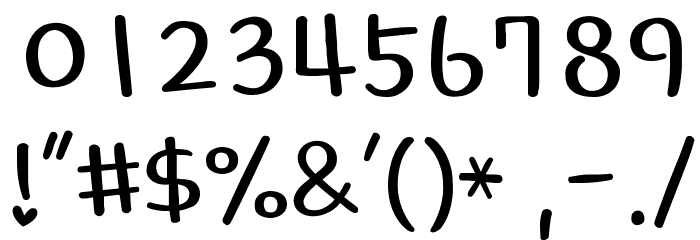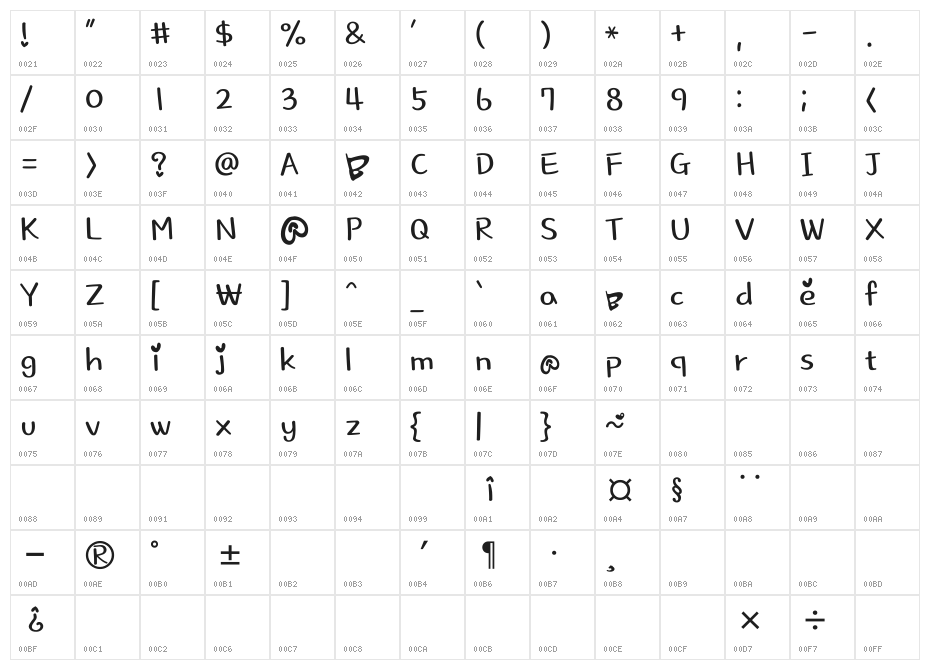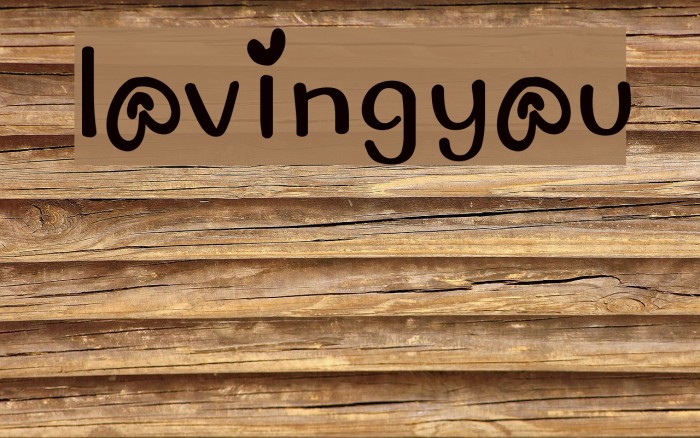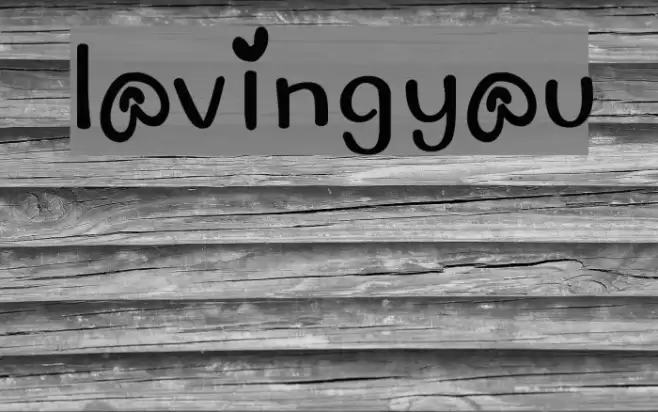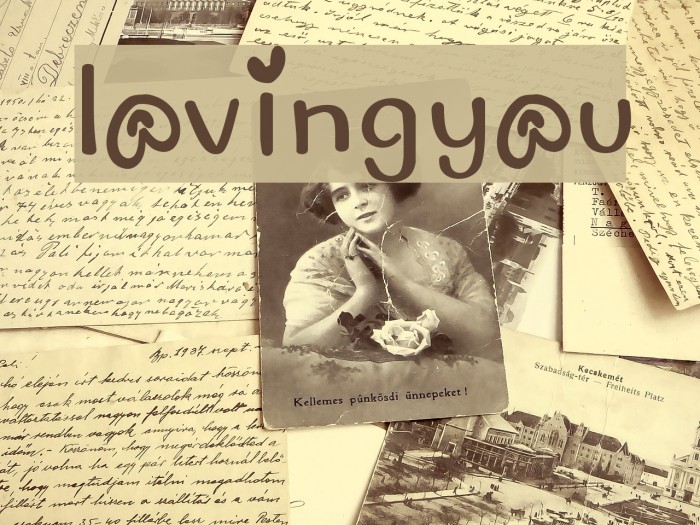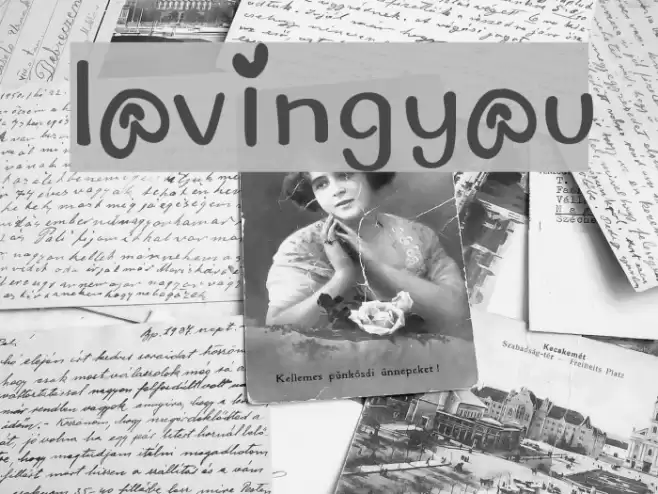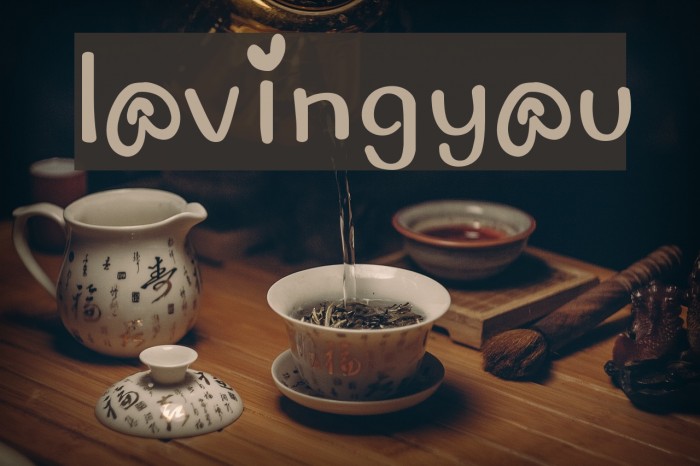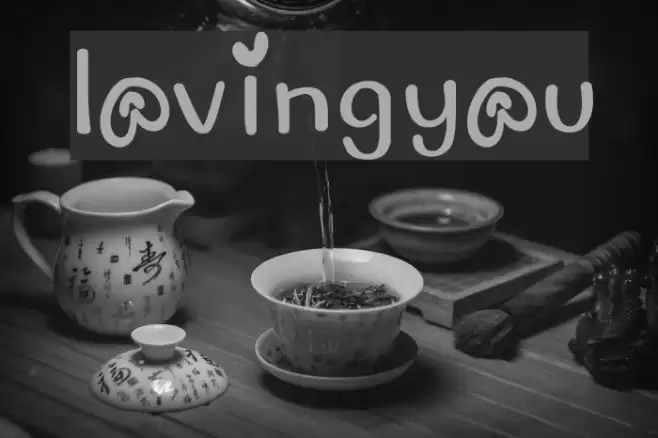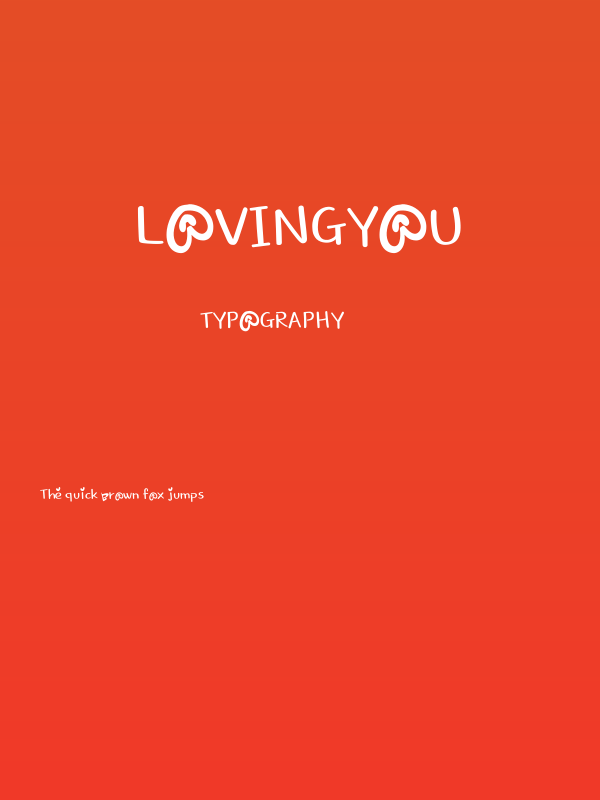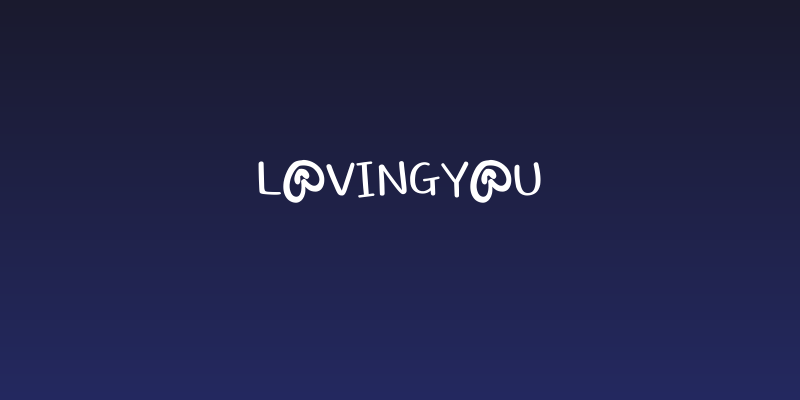
lovingyou Font
lovingyou Description
This playful and whimsical font features a handwritten style with a charming and friendly appearance. The letters are rounded and slightly irregular, giving it a casual and approachable feel. The uppercase letters are bold and distinct, while the lowercase letters maintain a consistent flow with unique flourishes, such as small heart shapes on certain characters. The numbers and special characters complement the overall style, maintaining the same playful aesthetic. This font is perfect for projects that require a personal touch, such as greeting cards, invitations, or children's books.
| Overall Style | Whimsical |
| Proposed Projects | Ideal for greeting cards, invitations, children's books, and playful branding. |